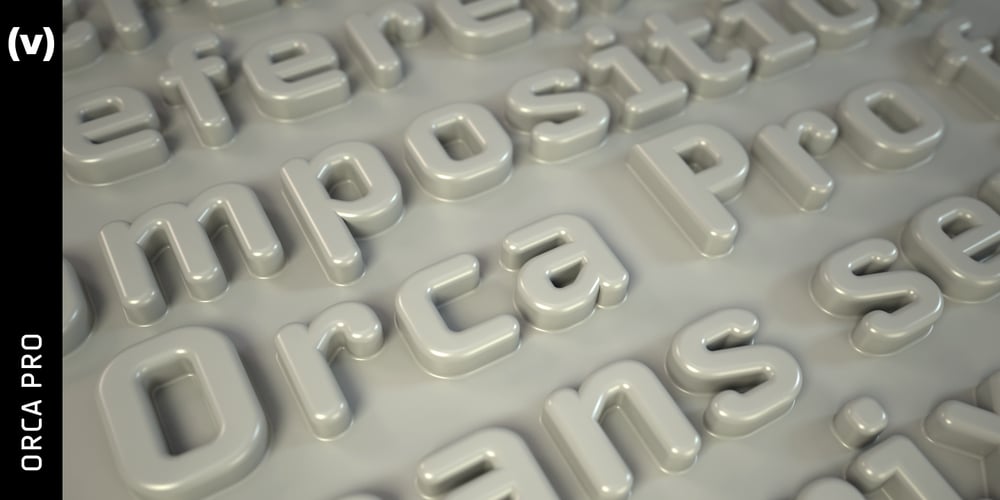
Orca Pro
Orca Pro font
Orca Pro Font Family was designed by Vít Šmejkal and published by (v) design. Orca Pro contains 10 styles and family package options. Orca Pro is a modern sans-serif font family. Its lowercase letters are inspired by the well known OCR-A font, however every single glyph has been more or less revised. Capitals, numerals and all other characters and punctuation marks are entirely new. Feel free to download the PDF Specimen for detailed info and examples. The Orca Pro family consists of 10 fonts – light, regular, medium, bold and heavy weights including real italics. It supports many OpenType features like automatic fractions, ordinals, proportional/tabular figures, numerators, denominators, superiors, inferiors or case sensitive forms and offers great multilingual support for most of Latin-based languages (including CE). Orca Pro contains a number of standard and discretionary ligatures, numerals as well as 62 bullets, symbols and arrows. Orca reveals its soft, rounded character in bigger sizes while it remains distinct and legible in small sizes.